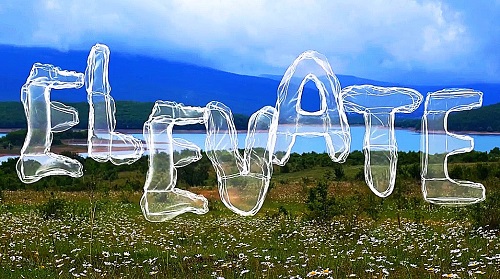
Easy Breezy Typeface 2672470 - Project for After Effects (NEW)
Easy Breezy Typeface 2672470
This After Effects template features a fun and breezy realistic 3D font of 52 inflated plastic letters,
numbers, and symbols. You can edit the text, adjust the animation and other typographic parameters,